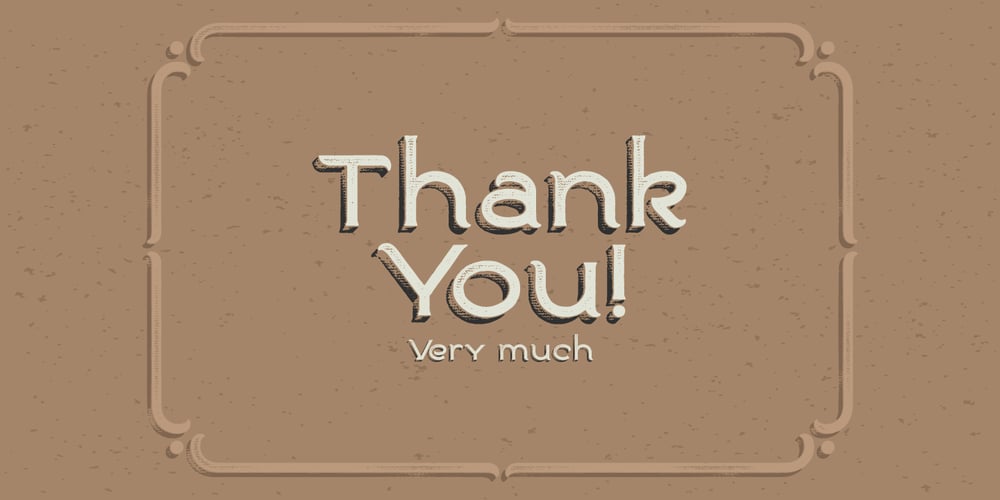
Ranch Vintage Font Family was designed by Gleb Guralnyk and published by Gleb Guralnyk. Ranch Vintage contains 4 styles and family package options. Hello! Presenting a typeface named “Ranch Vintage” with layered textured effect. It consists of four font variations for easy recoloring and combining. This font has a multilingual support.